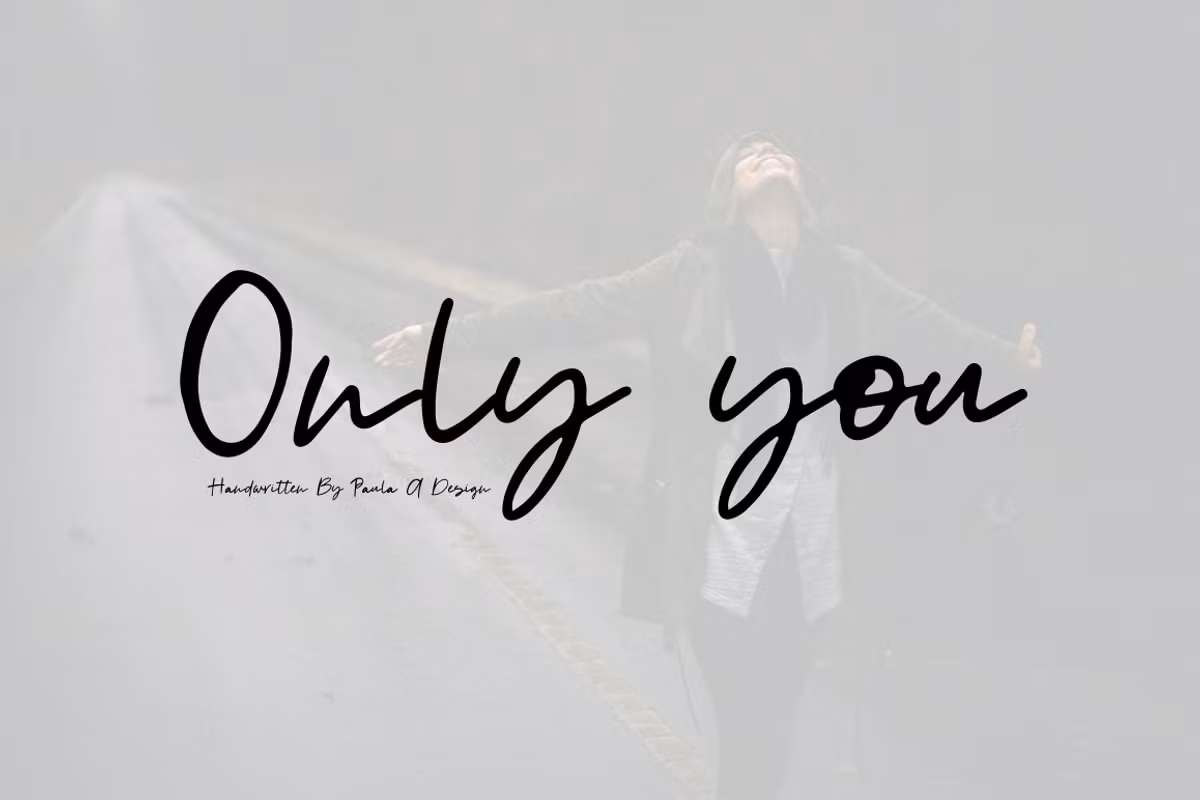
Only You | Handwritten Font Free Download is a delicate and romantic script typeface that captures the beauty of natural handwriting. With its flowing curves and personal touch, this font is perfect for wedding invitations, love notes, feminine branding, and heartfelt social media content.
Its soft strokes and elegant rhythm give designs a warm, approachable feel, while still maintaining readability. Whether you're creating custom logos, inspirational quotes, or boutique packaging, Only You adds an emotional, handcrafted vibe that resonates with viewers.